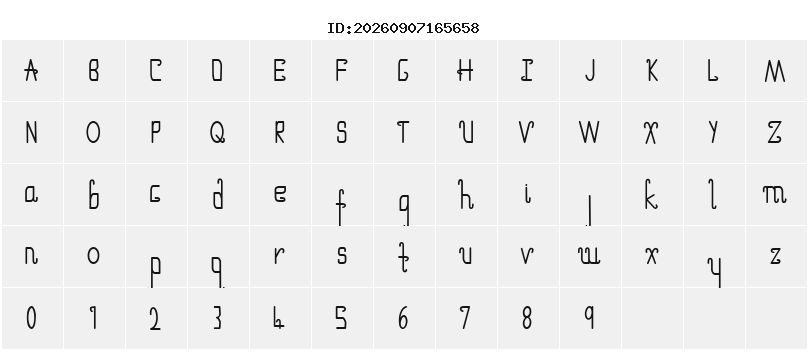
Umbrella Preview
About Umbrella.ttf
Umbrella.ttf is a modern, elegant sans-serif font designed for ultimate readability and visual harmony. Perfect for branding, headlines, web design, and print materials.